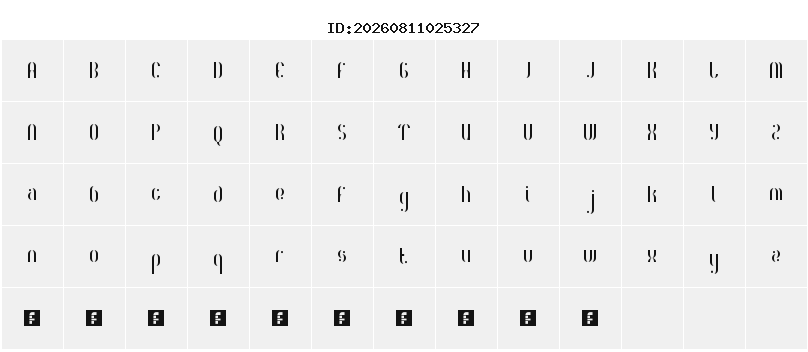
Royalty Code Preview
• Font Name: Royalty Code
• Full Font Name: Royalty Code Regular
• Designer: GeronimoFonts
• Description: ‚ÄúRoyalty Code‚Äù was built with FontStruct ‚ÄúRoyalty Code‚Äù is based on ‚ÄúThe Bad Manchester‚Äù by ‚ÄúGeronimoFonts‚Äù (http://fontstruct.com/fontstructors/geronimofonts)
About Royalty Code.ttf
Royalty Code.ttf is a modern, elegant sans-serif font designed for ultimate readability and visual harmony. Perfect for branding, headlines, web design, and print materials.